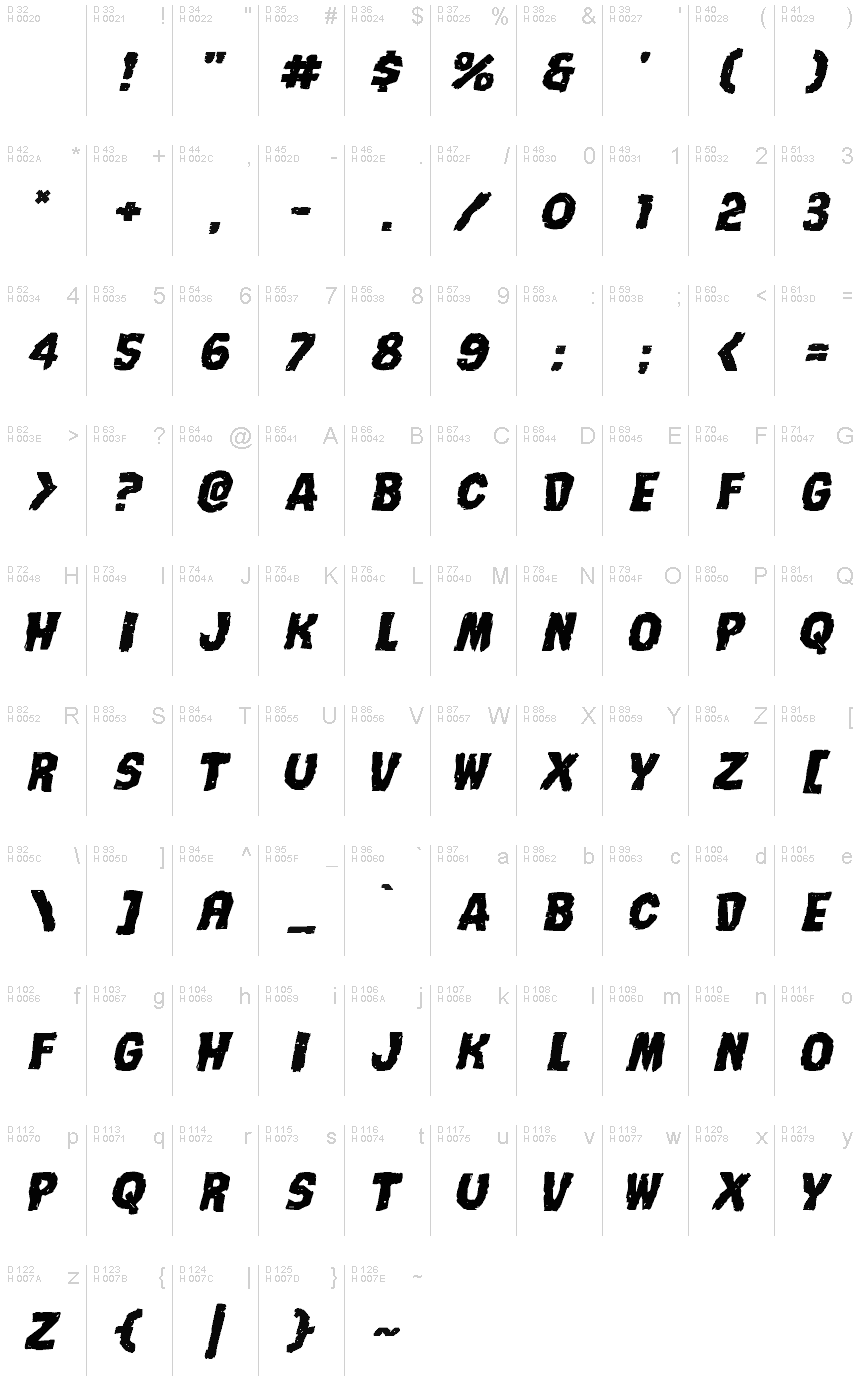
Nightmare Alley Expanded Italic
NIGHTMARE ALLEY is a bold, chilling font that immediately grabs attention. Inspired by the gritty aesthetic of vintage horror movie posters, this display typeface exudes an undeniable air of mystery and foreboding. The jagged, angular letterforms evoke a sense of unease, while the heavy, italicized style lends an ominous tension to the overall design.
This font excels in applications where you seek to evoke a dark, unsettling mood - from book covers and movie titles to event branding and promotional materials. Its versatility allows it to seamlessly transition between sinister and stylish, making it a powerful tool for designers looking to craft an unforgettable visual impact.